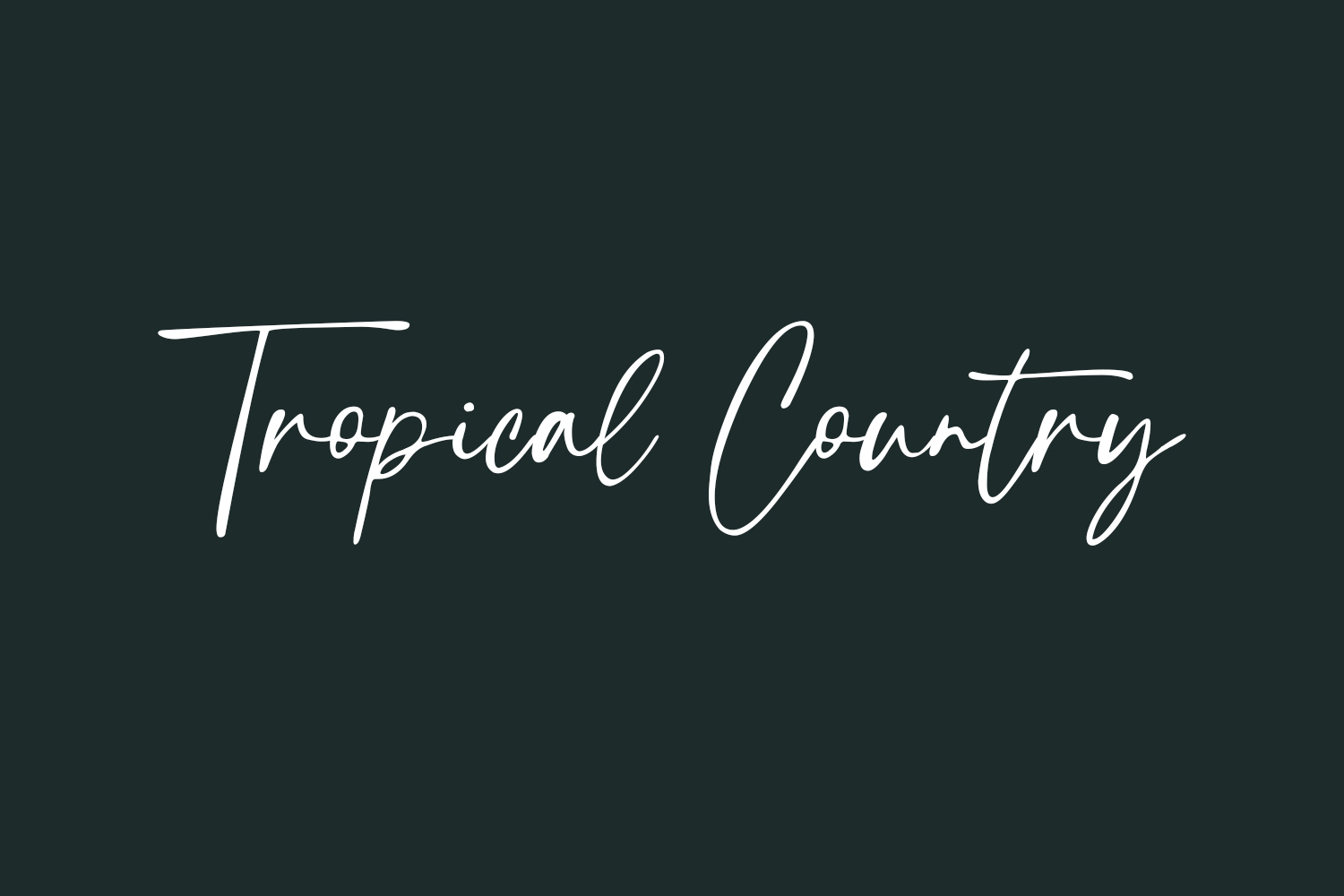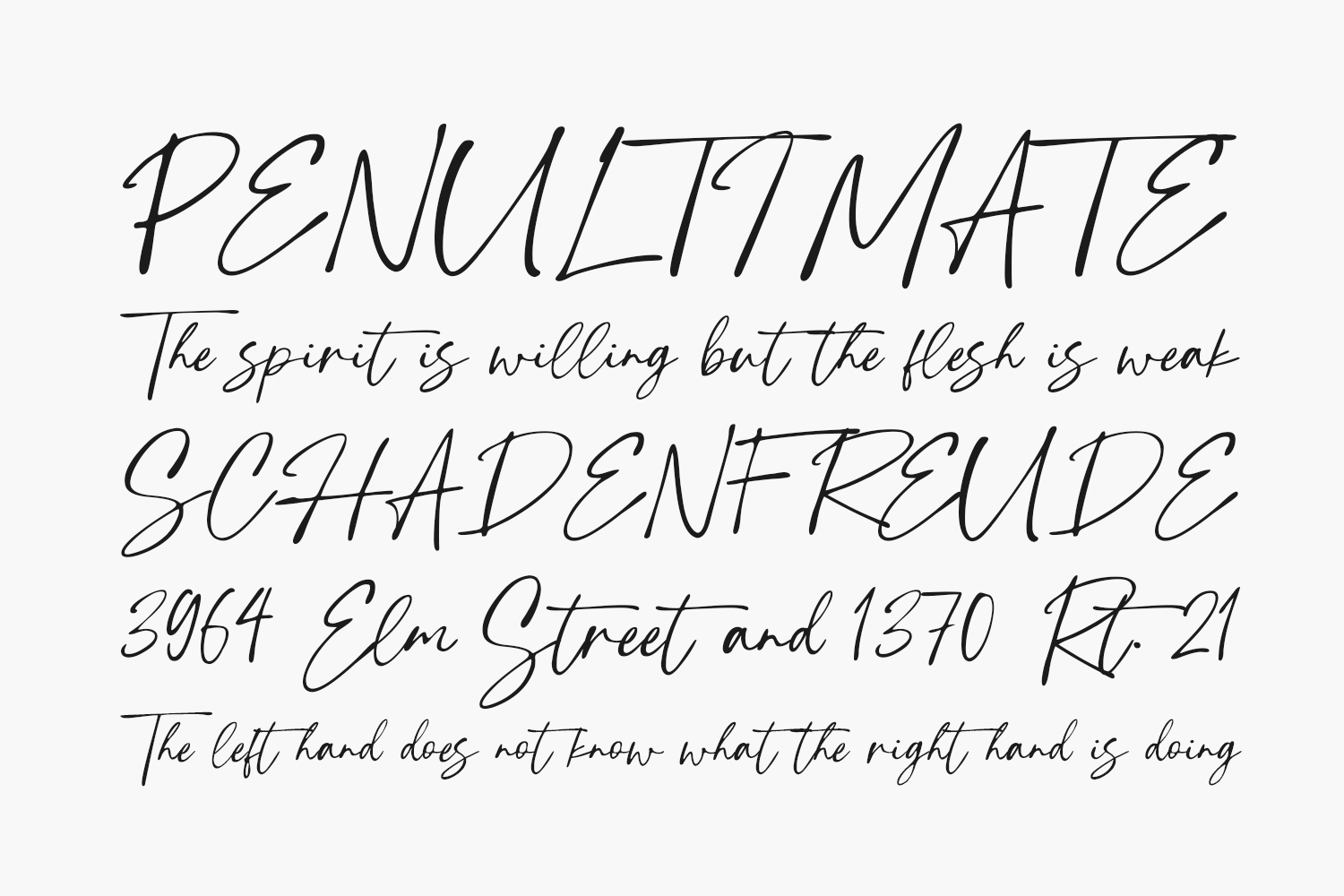
Tropical Country Free Font is a stylish, luxurious and light handwritten font. It is defined by smooth curves and is perfect for fashion branding or editorial designs. Add it confidently to your projects, and you will love the results. Tropical Country Free Font was designed by Sronstudio and is free for personal use only. Please purchase the full version for commercial use.